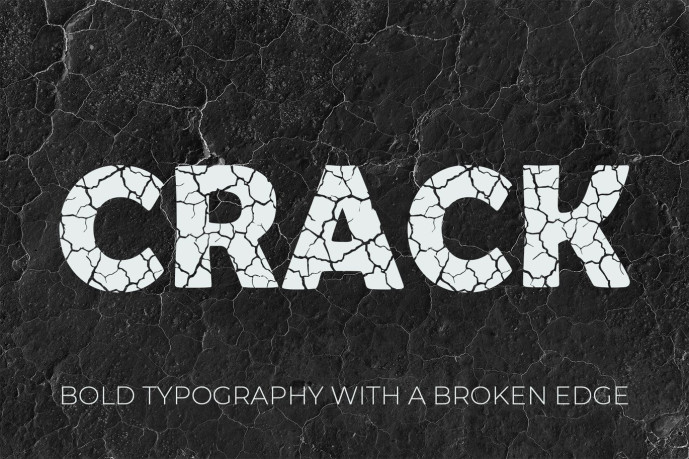
Crack Font – Bold Broken Texture Display Typeface
Crack – Distressed Cracked Effect Display Font
Crack Font is a bold display typeface featuring a distinctive cracked and broken texture effect. Its rugged distressed appearance creates a powerful visual style for posters, headlines, branding, advertising, packaging, album covers, product presentations, promotional graphics, and other creative design projects. The strong letterforms and fractured texture make it an excellent choice for designs that require an edgy, dramatic, and impactful typographic appearance.
Unique letterforms